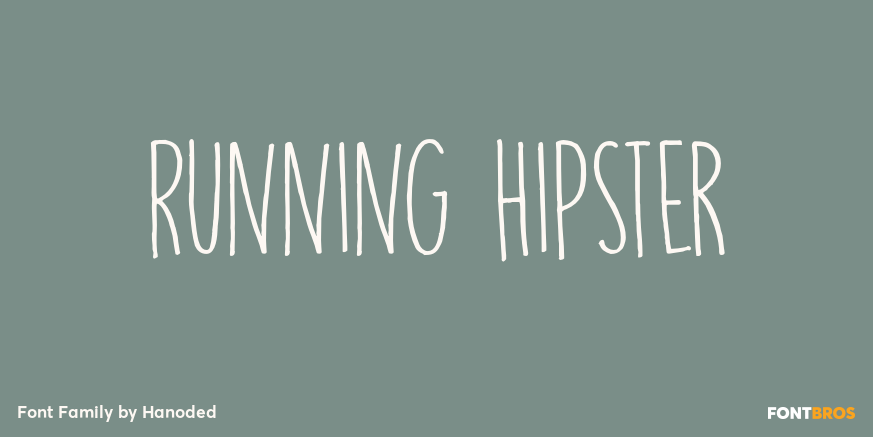
About Running Hipster
Running Hipster is a tall, thin and all caps font with a funny name. The upper and lower case letters differ and can be mixed. You don\’t necessarily have to use it to market your free range sheep woollen jumpers or organic button squash and soy based…